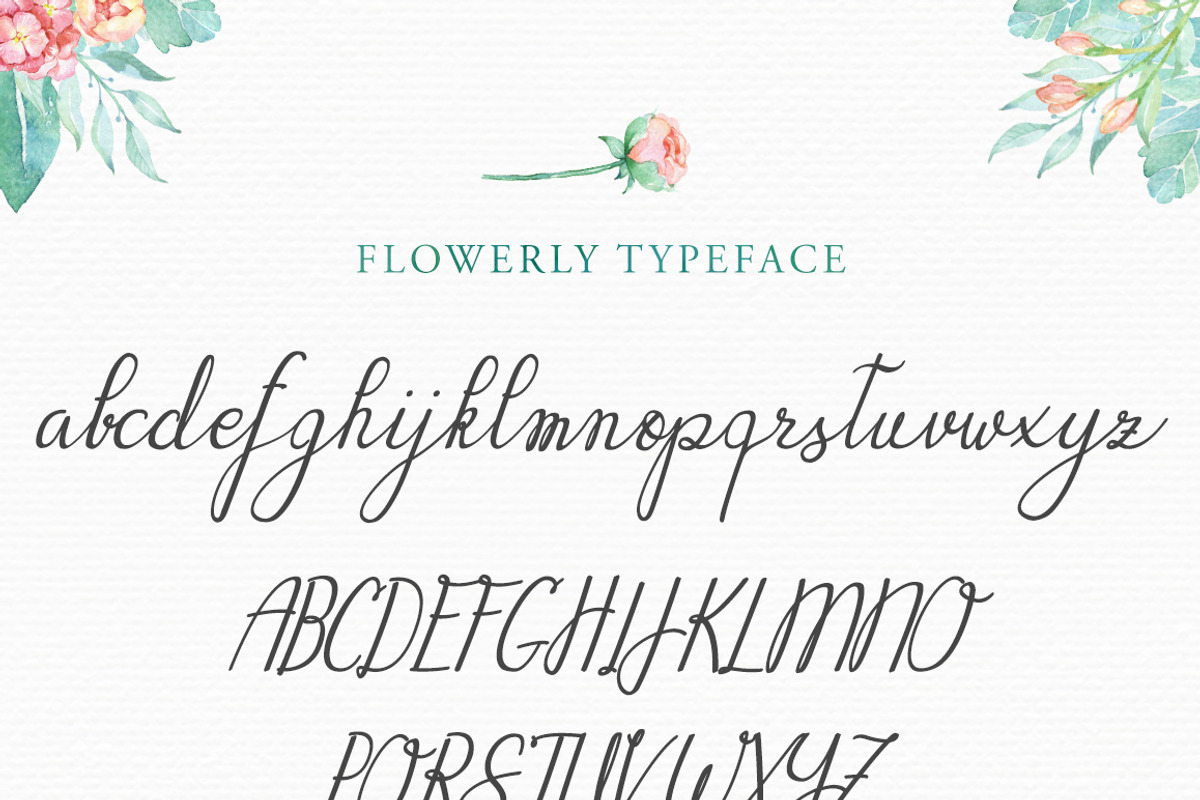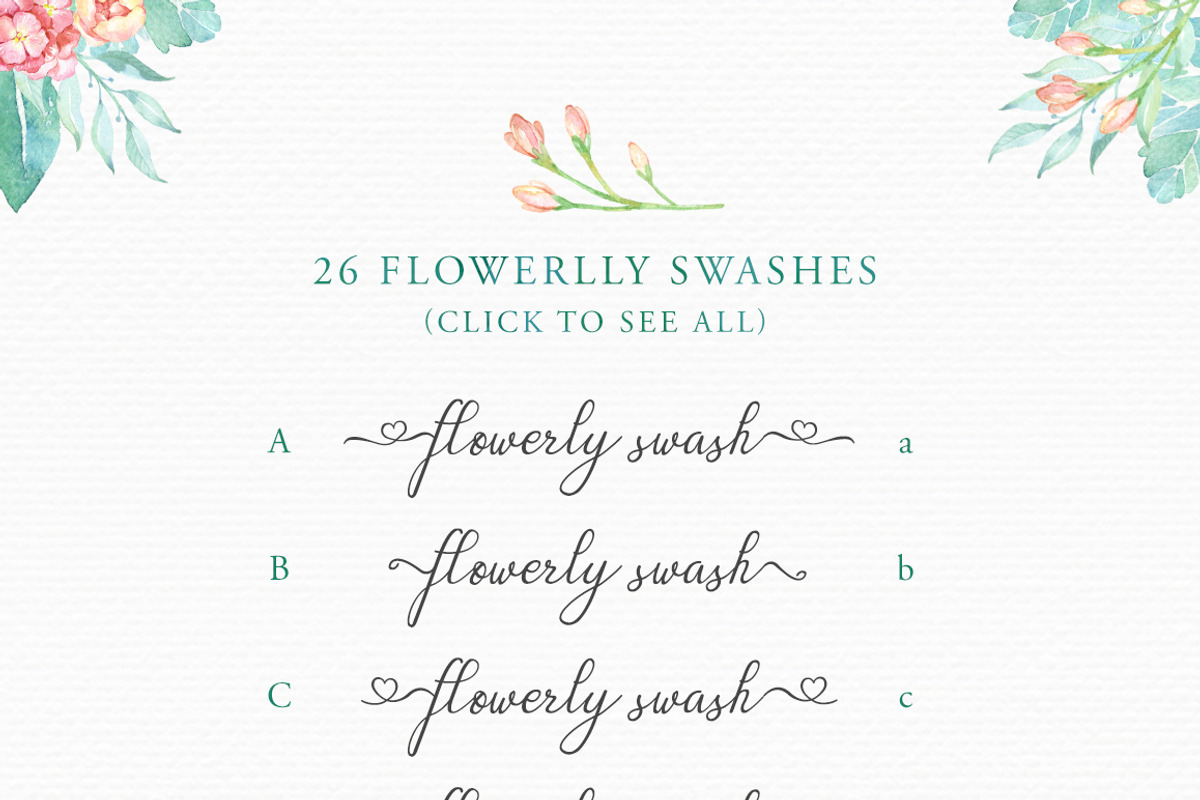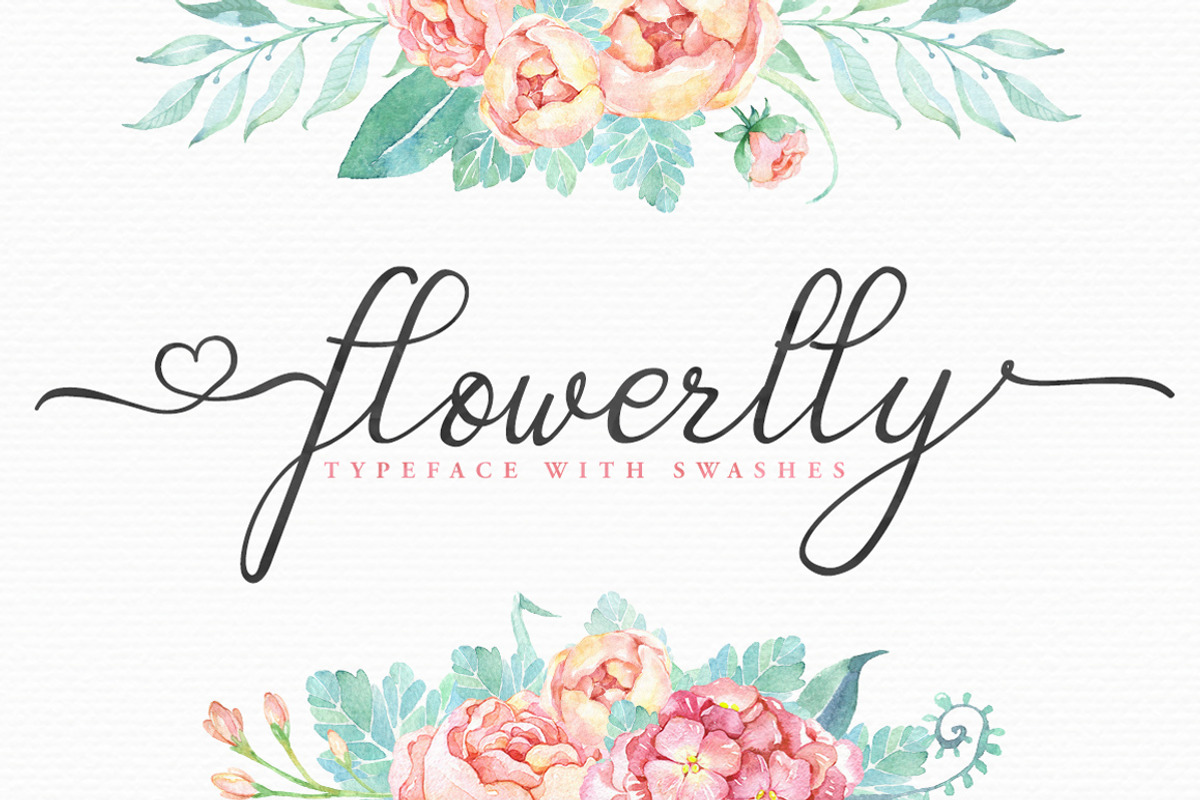
Flowerlly Typeface with Swashes
Flowerlly Typeface with Swashes by Rad Fonts is a font selected for branding, posters, packaging, typography.
- Flowerlly has ligatures like ff, th, tl, fl, mn, aa, bb, cc, dd, ee...
- Basically when there are 2 of the same letters next to each other, your software uses a ligature so those 2 letters looks not exactly the sa
Why Flowerlly Typeface with Swashes is worth a look
Flowerlly Typeface with Swashes by Rad Fonts fits naturally into Branding, posters, packaging, typography.